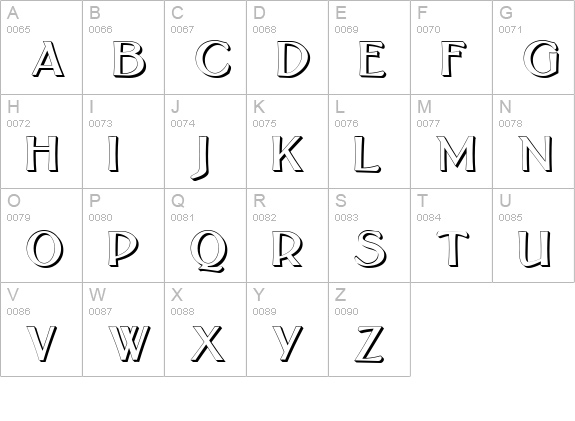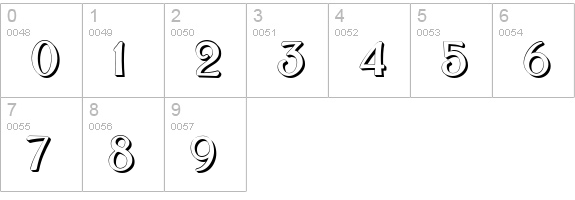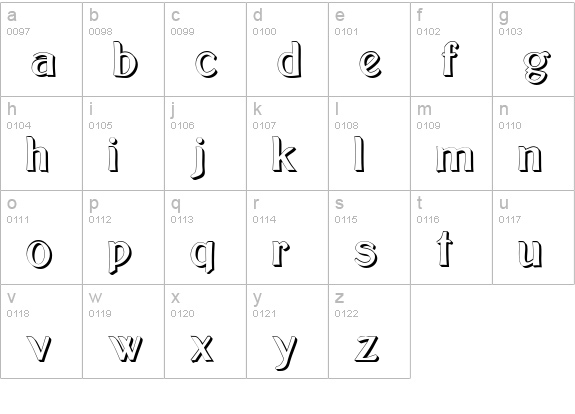
Bolton Sans Embossed Font Details
Bolton Sans Embossed is a modern and stylish font that exudes sophistication and elegance. Its clean lines and subtle embossing give it a unique and eye-catching appearance that is perfect for a wide range of design projects. This versatile font is sure to make your text stand out and leave a lasting impression on your audience. Best of all, Bolton Sans Embossed is available for free download at FontsMarket.com. Whether you're working on a professional project or a personal endeavor, this font is a valuable addition to your design arsenal. Don't miss out on the opportunity to enhance your work with the timeless charm of Bolton Sans Embossed. Download it today and start creating beautiful and impactful designs effortlessly.